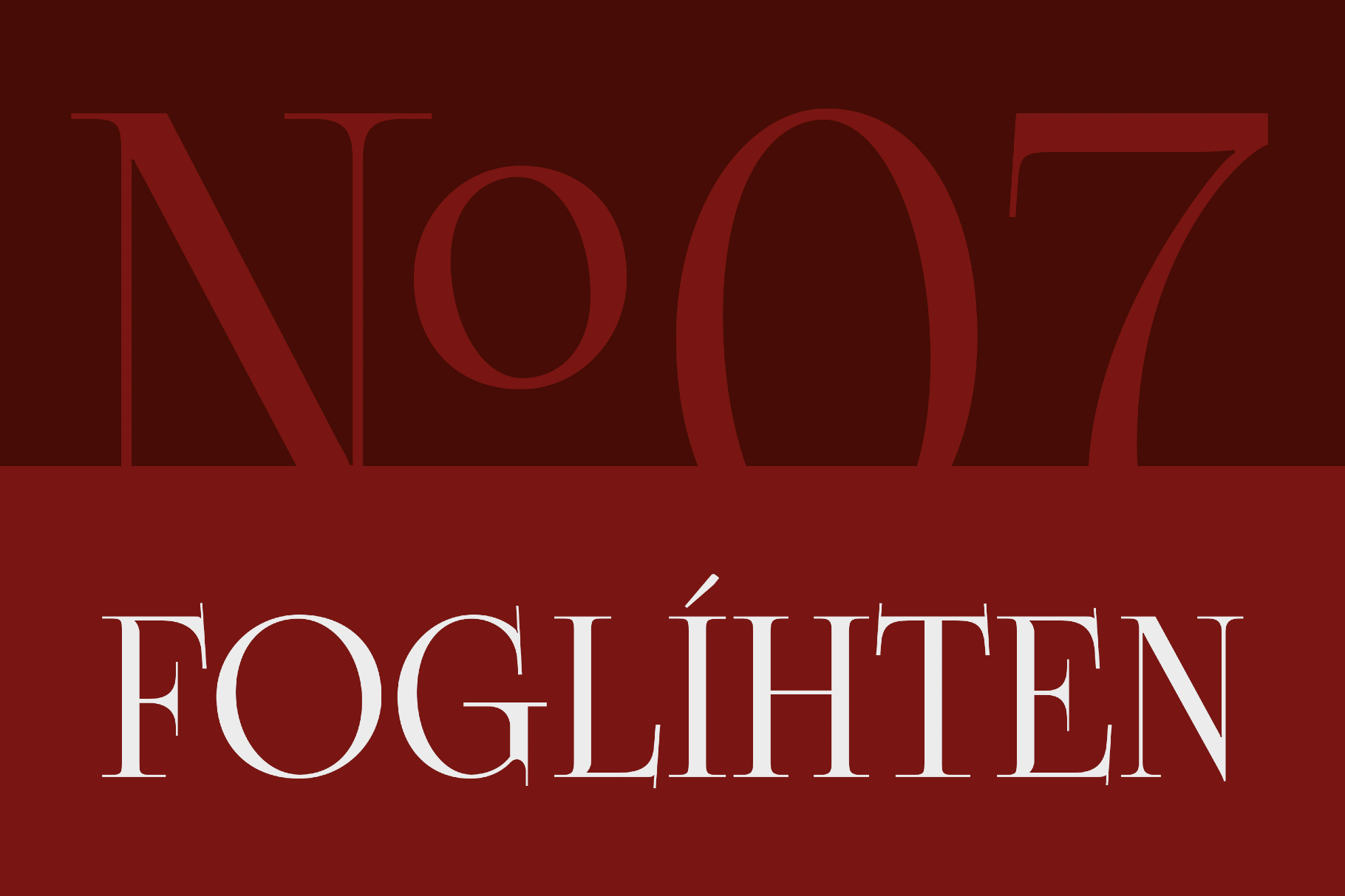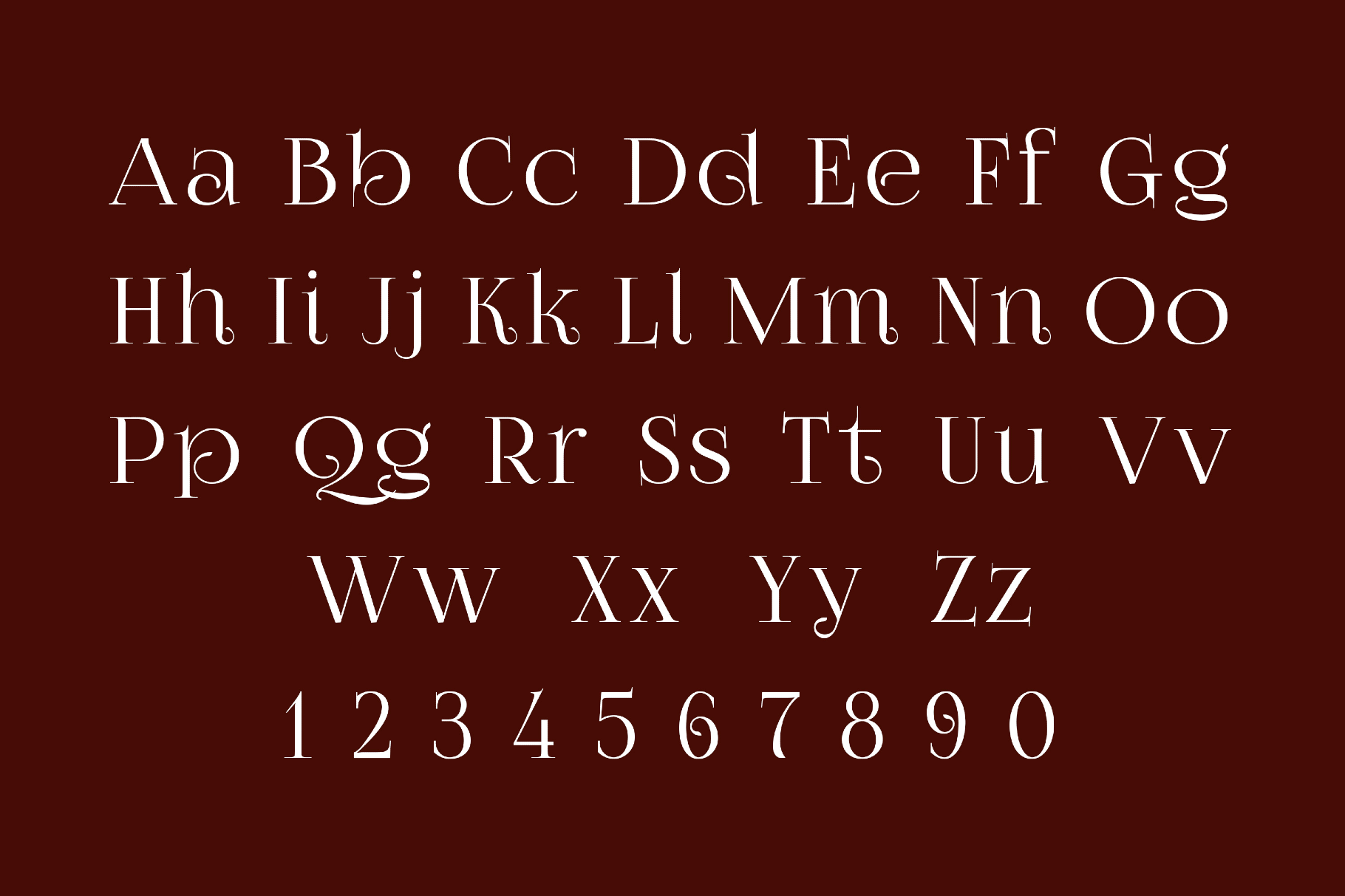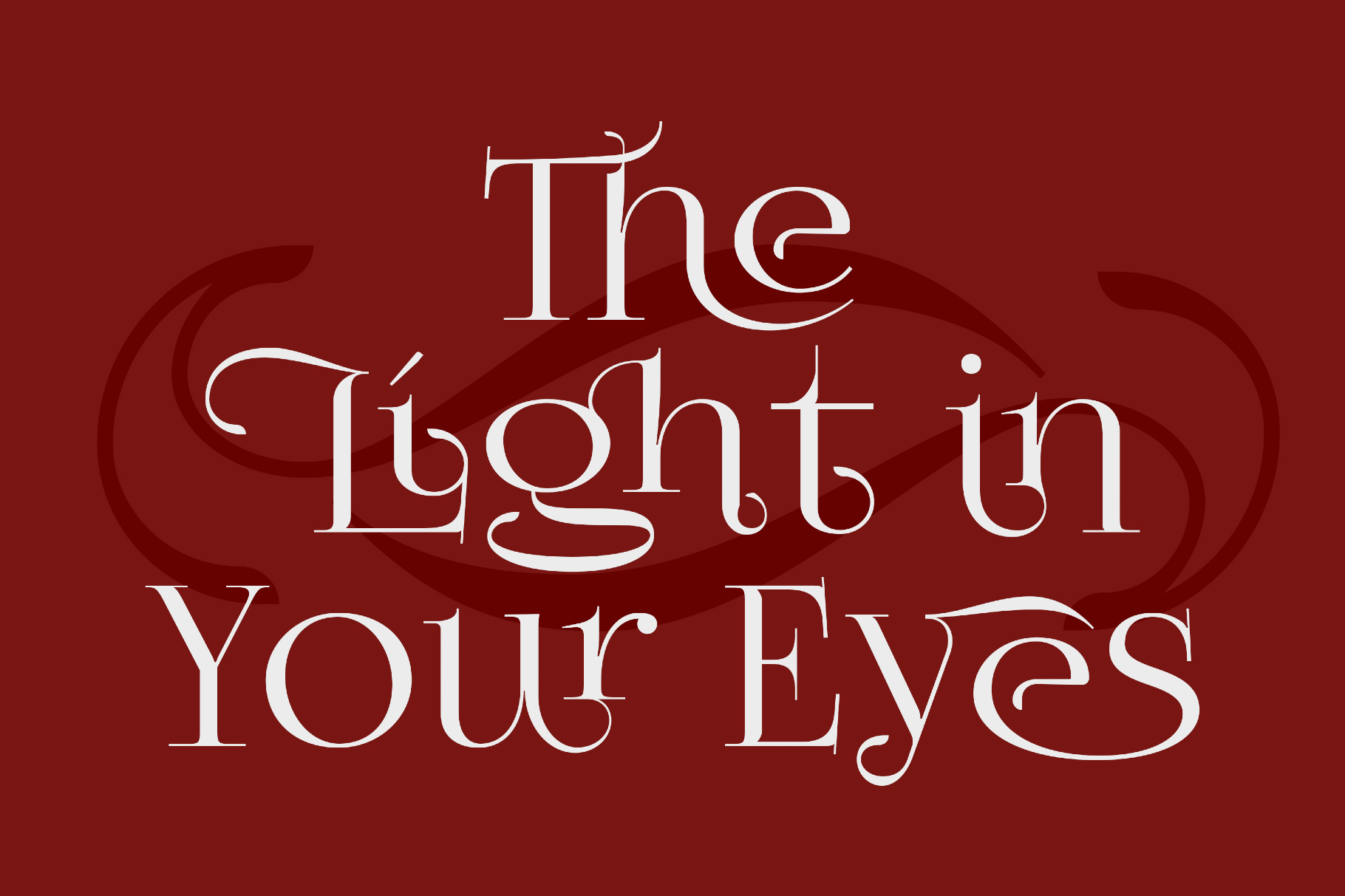
Foglihten №07
Foglihten №07 weaves high-contrast curves into a calligraphic serif that recalls Victorian-era bookplates and Art Nouveau poster titling. Its abundant ligatures, swashes, and stylistic alternates make it shine on book covers, fantasy game titles, theatrical posters, album artwork, boutique packaging, literary branding, wedding stationery, certificates, editorial headlines, and cinematic logo lockups where sharp, storybook letterforms can take centre stage.
- Multilingual support across an extended Latin set.
- Ligatures, stylistic alternatives, and swashes.